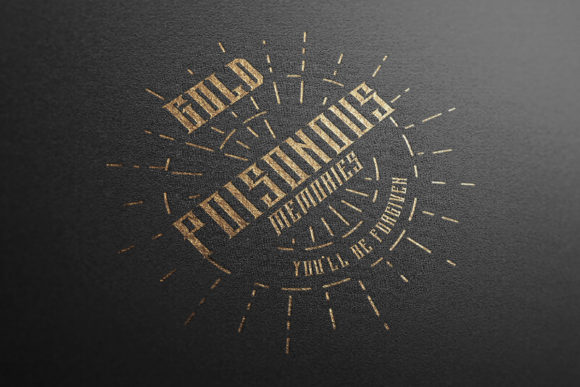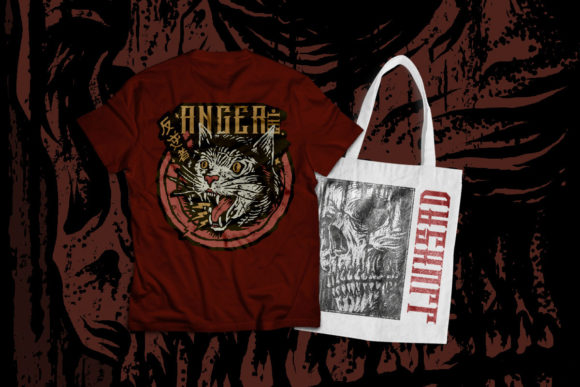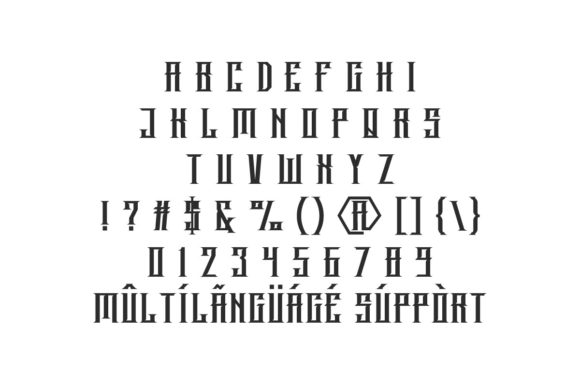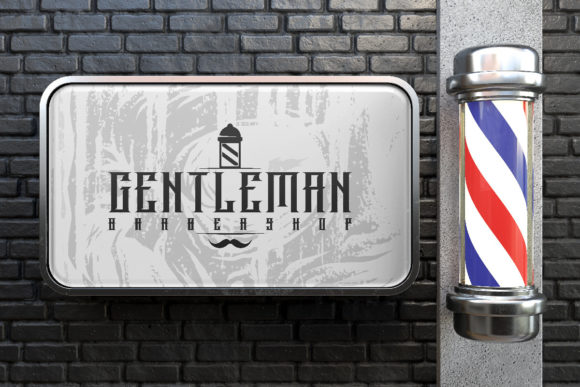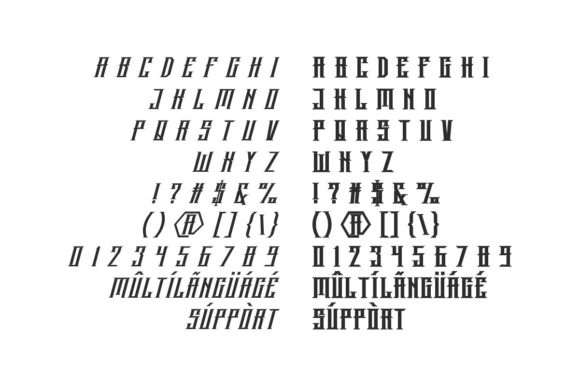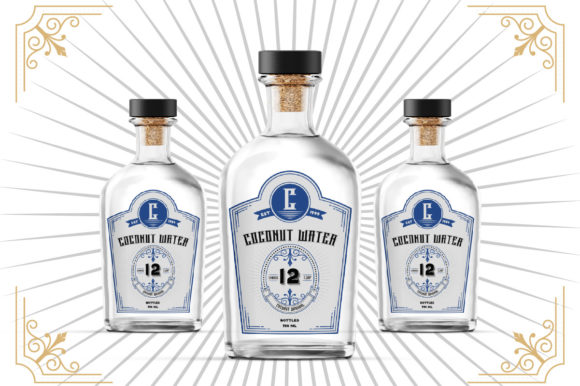
Unleash the Power of Blackjet Font: Elevate Your Designs with an Assertive and Robotic Display Font
In the world of typography, fonts play a crucial role in conveying the tone and personality of a design. Whether you’re a seasoned designer or a crafty DIY enthusiast, having the right font in your arsenal can make all the difference. That’s where Blackjet Font comes in – an assertive and robotic display font that’s sure to elevate any creation. In this article, we’ll dive into the features and benefits of Blackjet Font, and explore how it can become an incredible asset to your font library.
The Power of Blackjet Font
Blackjet Font is a bold and futuristic display font that’s designed to make a statement. Its assertive and robotic style gives it a unique edge, making it perfect for a wide range of design applications. From bold headlines to eye-catching titles, Blackjet Font is sure to grab attention and leave a lasting impression.
One of the key features of Blackjet Font is its versatility. Whether you’re working on a futuristic tech project, a sci-fi inspired art piece, or a modern branding campaign, this font can adapt to any topic or theme. Its robotic style gives it a sense of industrial chic, while its bold lines and geometric shapes make it perfect for creating striking visuals.
Key Features of Blackjet Font
- Assertive and Robotic Style: Blackjet Font boasts a bold and futuristic style that’s sure to make a statement.
- Versatile: Perfect for a wide range of design applications, from tech and sci-fi to modern branding and advertising.
- Geometric Shapes: Blackjet Font features geometric shapes and bold lines, making it perfect for creating striking visuals.
- Easy to Read: Despite its bold style, Blackjet Font is easy to read, even at smaller sizes.
Benefits of Using Blackjet Font
So why should you consider adding Blackjet Font to your font library? Here are just a few benefits of using this incredible display font:
- Instant Impact: Blackjet Font is designed to grab attention and make a statement. Use it to create bold headlines, eye-catching titles, and striking visuals.
- Versatility: Blackjet Font can adapt to any topic or theme, making it a versatile addition to your font library.
- Professional Look: With its bold and futuristic style, Blackjet Font can add a professional touch to any design.
- Time-Saving: With Blackjet Font, you can create stunning visuals in no time. Its easy-to-read style and geometric shapes make it perfect for quick and effective designs.
How to Use Blackjet Font
So how can you start using Blackjet Font in your designs? Here are a few tips to get you started:
- Headlines and Titles: Use Blackjet Font to create bold headlines and eye-catching titles that grab attention.
- Branding and Advertising: Perfect for modern branding and advertising campaigns, Blackjet Font can add a professional touch to any design.
- Posters and Flyers: Use Blackjet Font to create striking posters and flyers that stand out.
- Digital Art: Blackjet Font is perfect for digital art and illustrations, adding a futuristic touch to any piece.
In conclusion, Blackjet Font is an incredible asset to any font library. Its assertive and robotic style, versatility, and ease of use make it perfect for a wide range of design applications. Whether you’re a designer, crafty DIY enthusiast, or simply looking to elevate your designs, Blackjet Font is a must-have font that’s sure to make a statement. So why wait? Add Blackjet Font to your font library today and unleash the power of bold and futuristic typography!